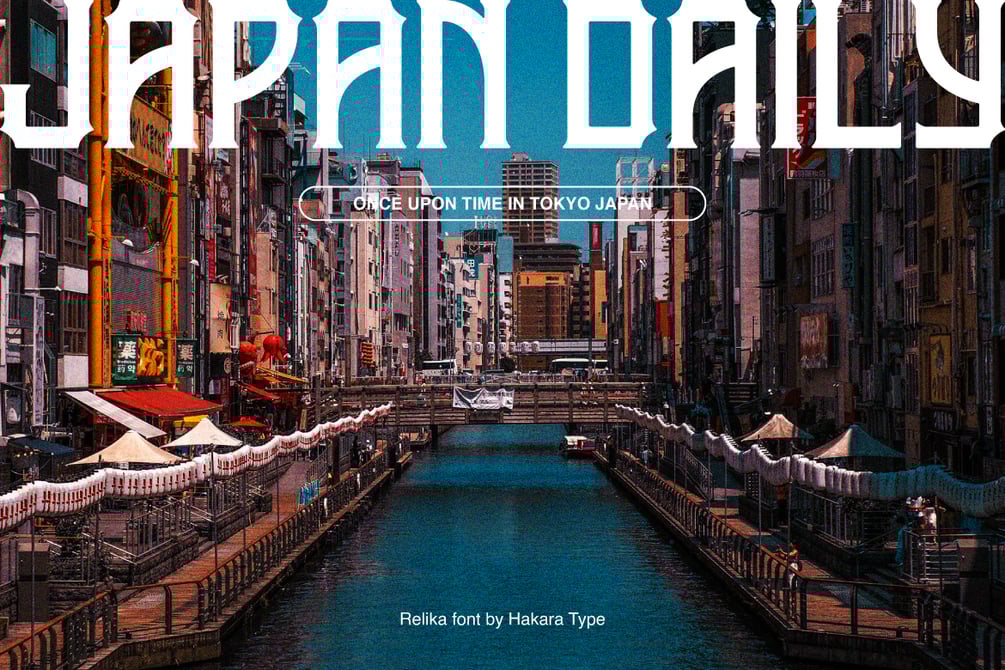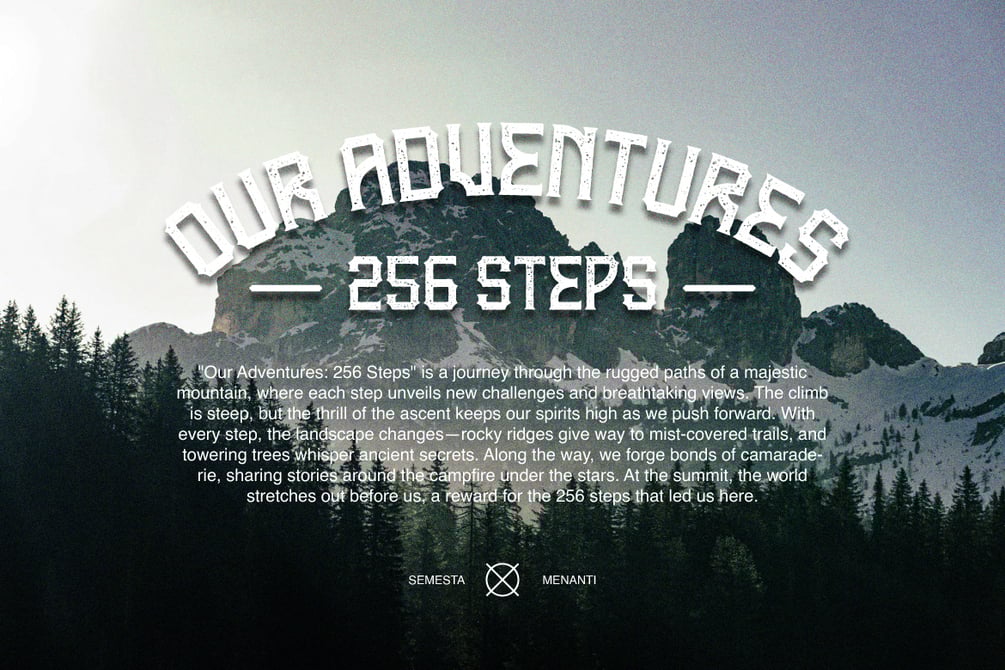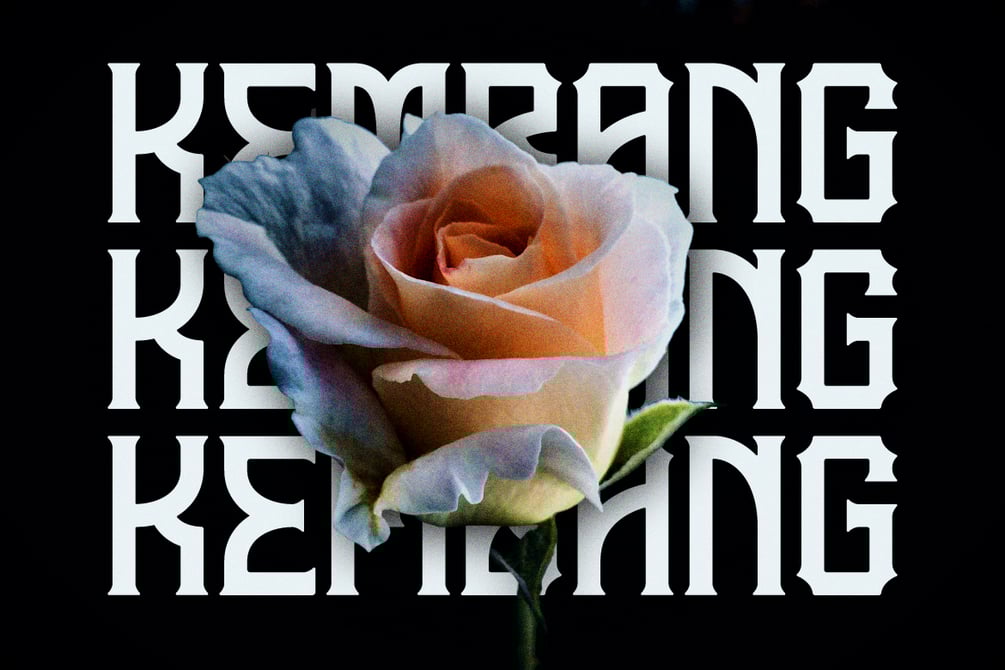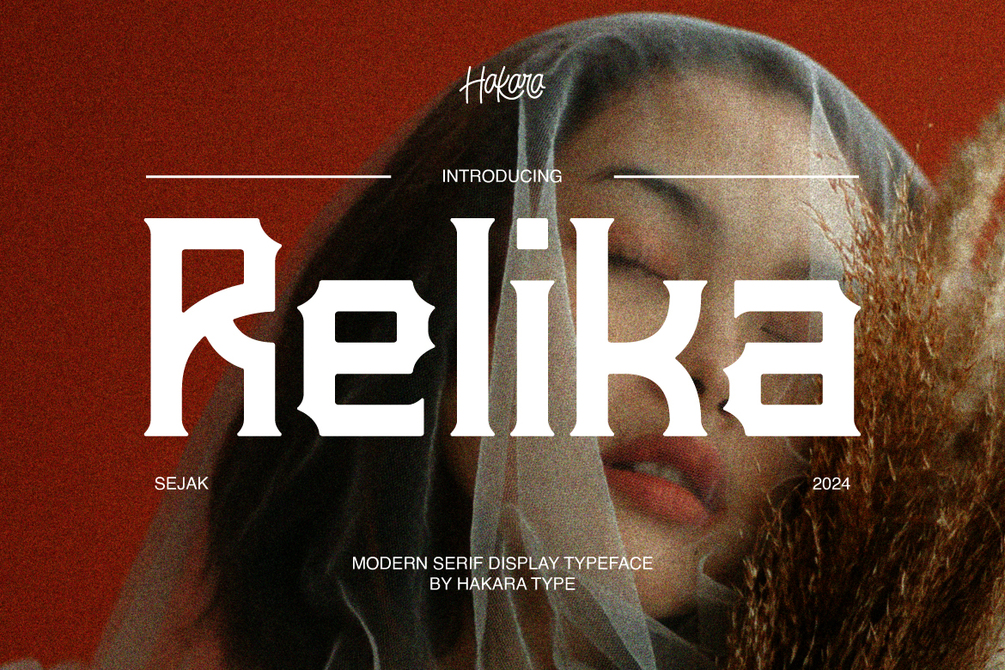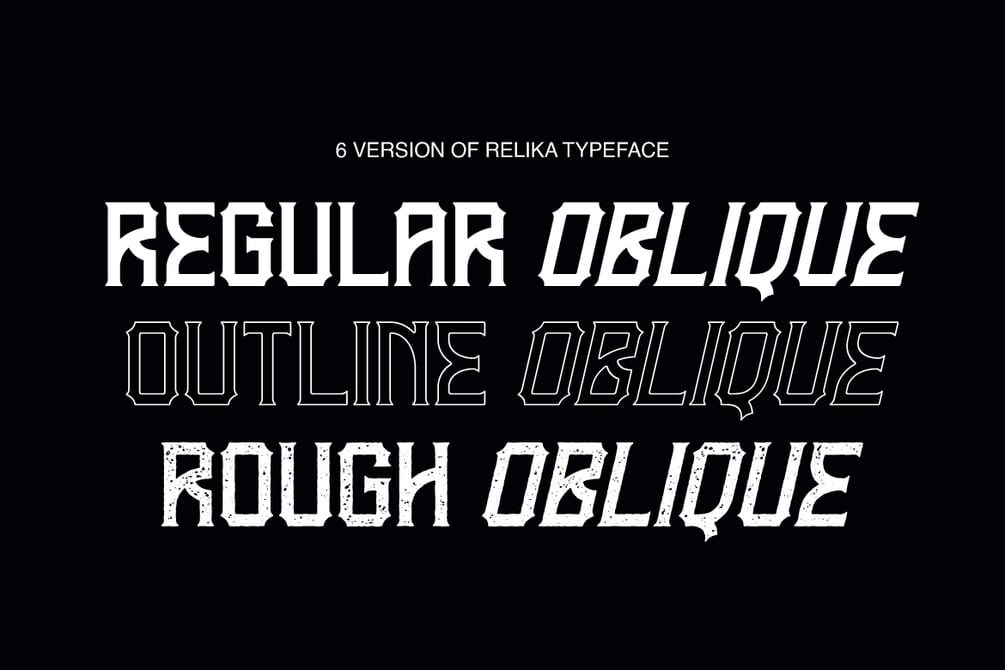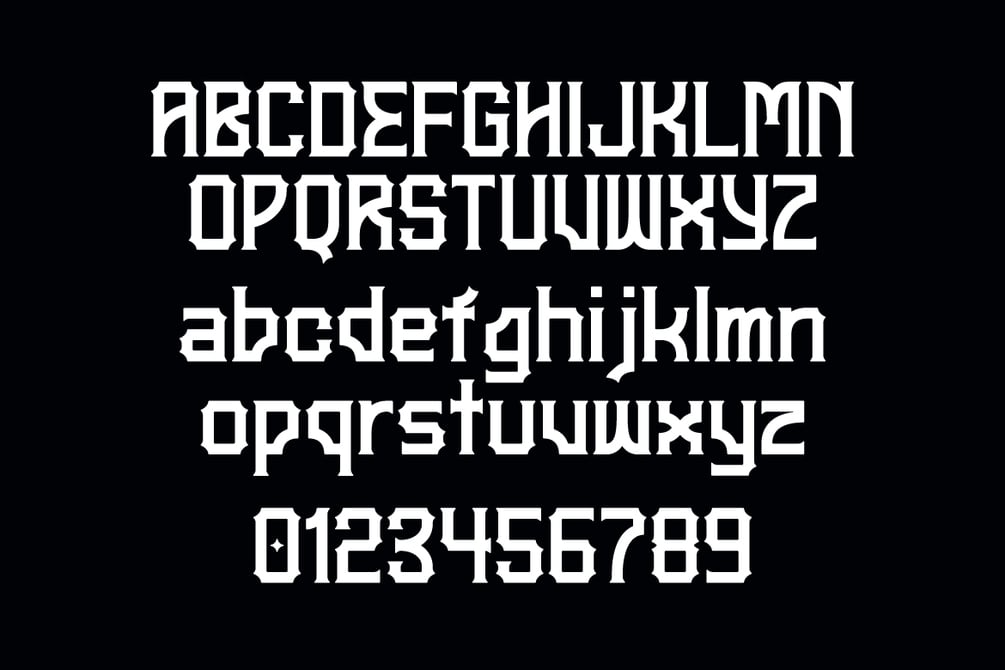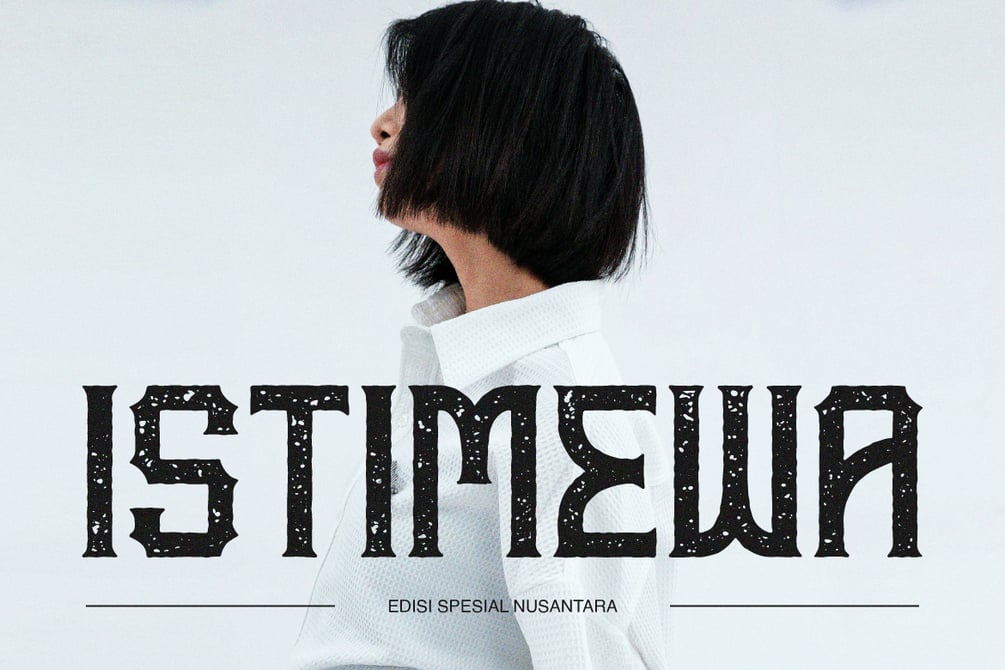
Relika - Display Serif
Relika is a display serif font, inspired by blackletter style lettering. Relika comes in regular, outline, and rough versions. It also contains uppercase, lowercase, as well as numbers only. It is free to use for personal and commercial.